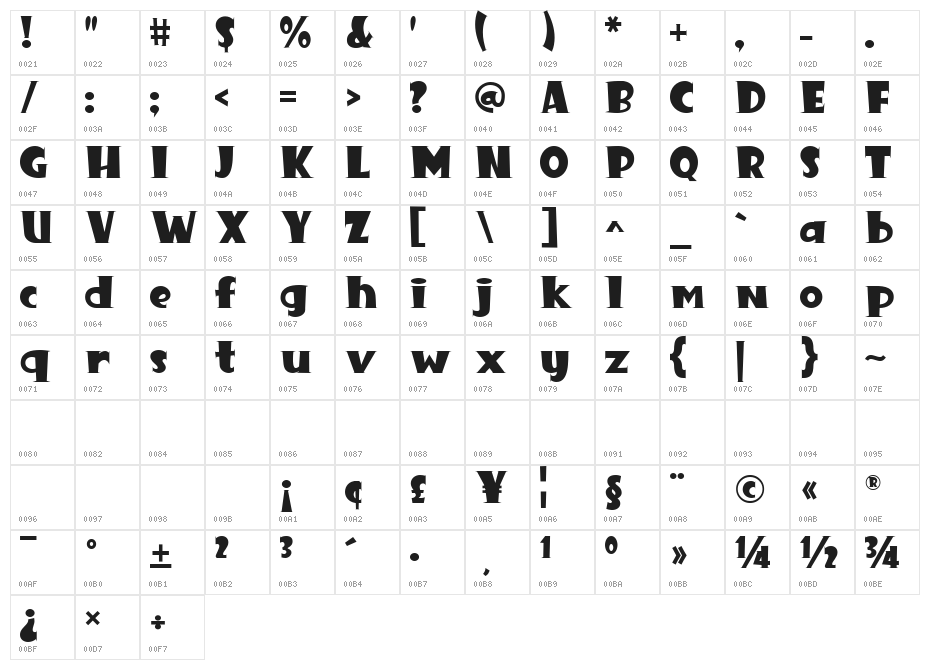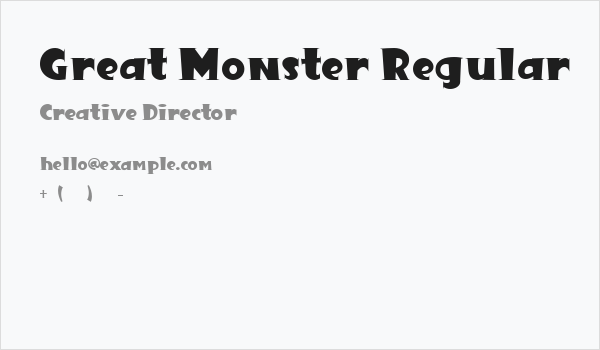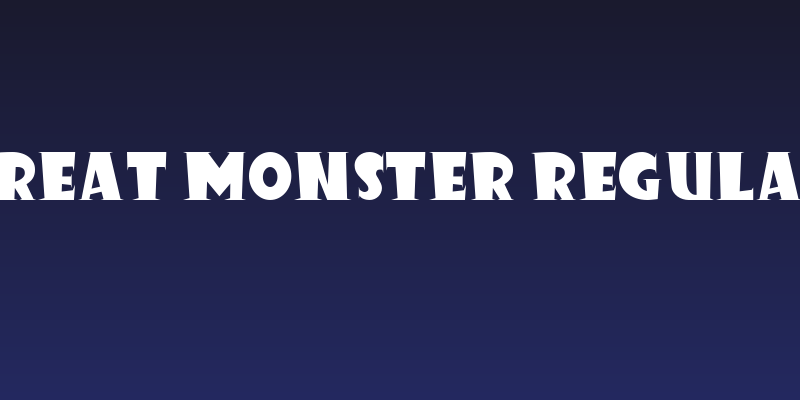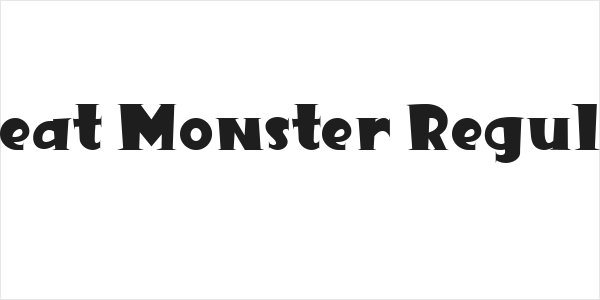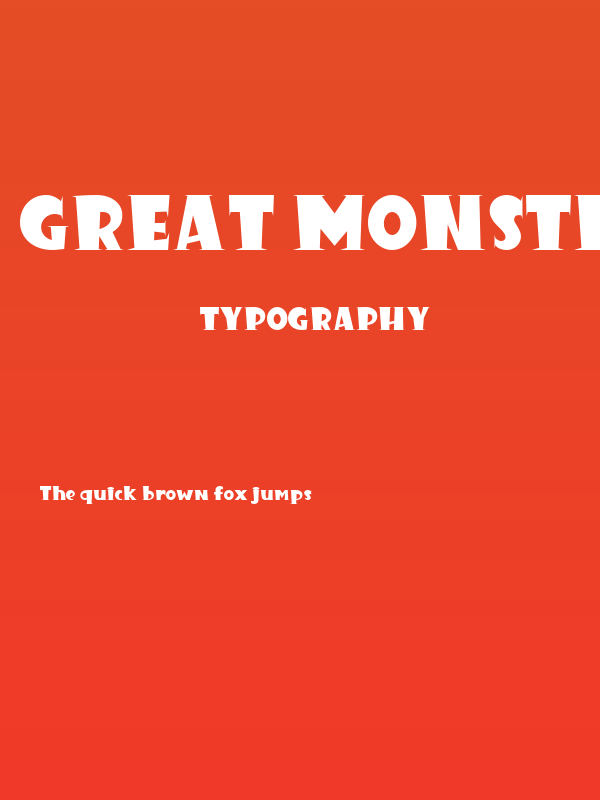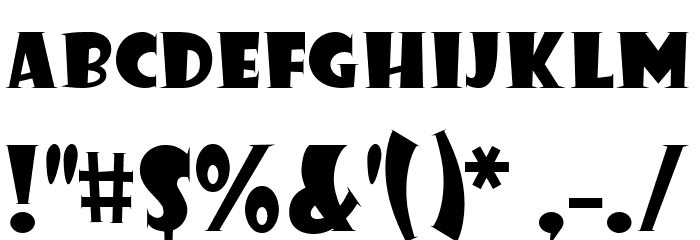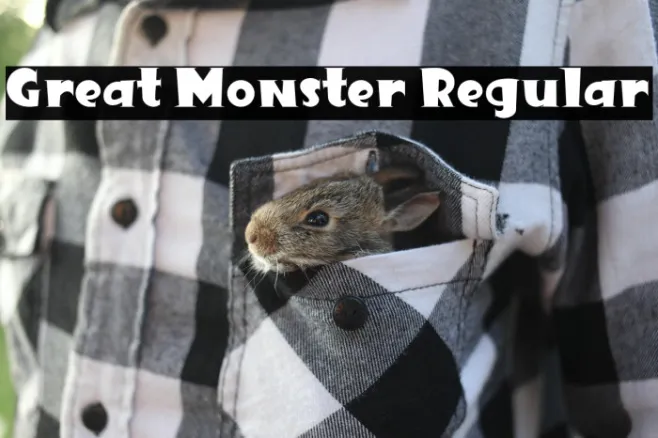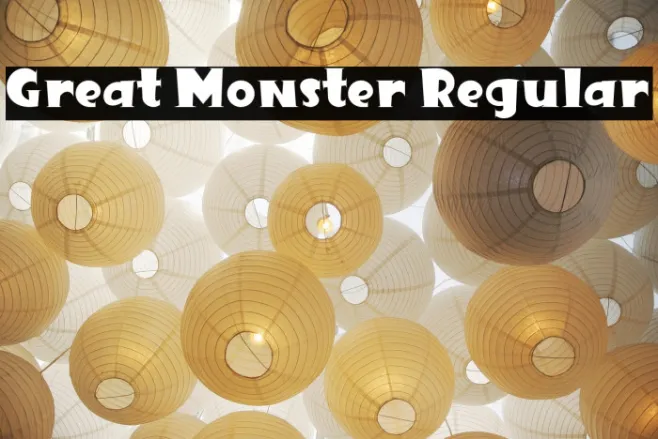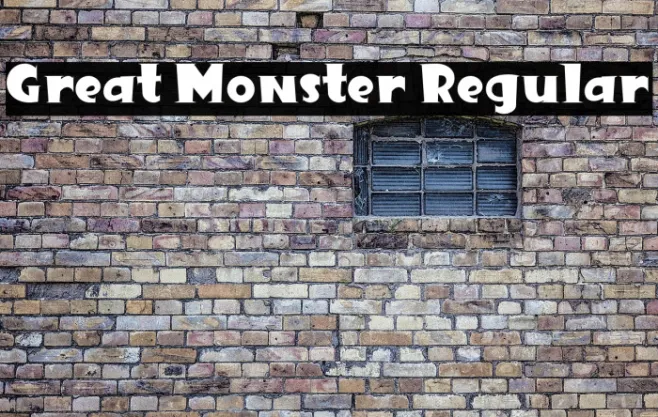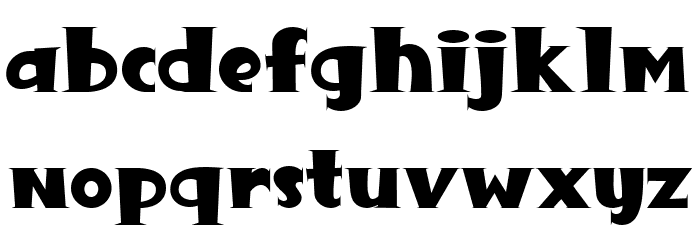
Great Monster Regular Font
Great Monster Regular Description
This font features a bold and playful design with exaggerated curves and sharp angles, giving it a whimsical and dynamic appearance. The characters are wide and have a strong presence, making them ideal for attention-grabbing headlines or creative projects. The uppercase and lowercase letters maintain a consistent style, with unique elements such as the slanted crossbars and varying stroke widths that add to its quirky charm. The numbers and special characters follow the same bold and expressive style, ensuring a cohesive look across all text elements.
| Proposed Projects | Ideal for Halloween-themed designs, children's book covers, playful branding, and eye-catching posters. |